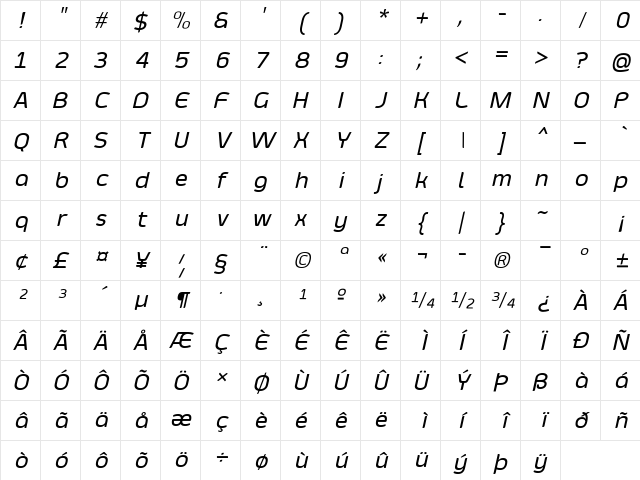
Complete Smoolthan Medium-Italic glyph index. Displaying only characters natively supported by Smoolthan Medium-Italic font.
Smoolthan is a composed and adaptable typeface that performs quietly and consistently across a wide range of design contexts. The slanted form adds forward momentum and visual energy.
Pro Tip: Use Smoolthan for emphasis, pull quotes, and subheadings where its slanted energy can add rhythm to the layout.